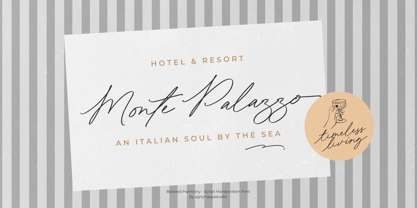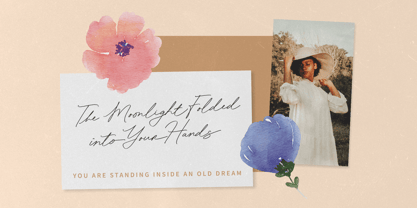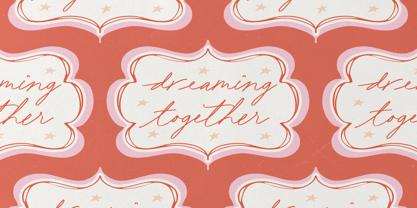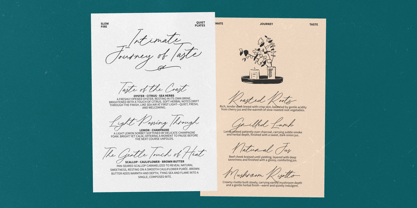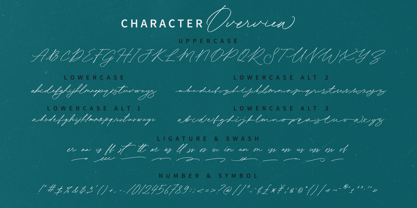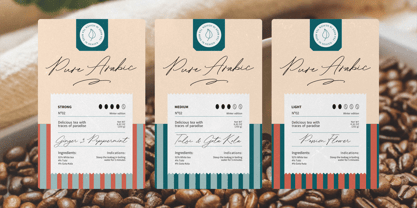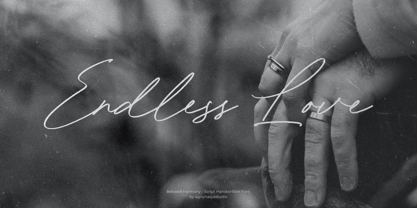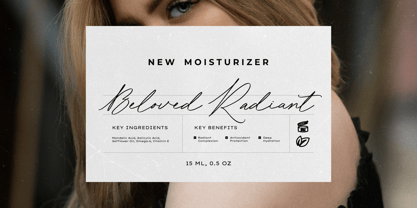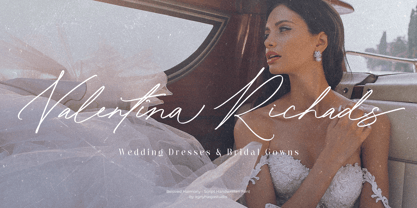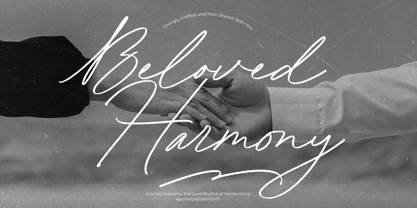
Beloved Harmony
by Agny Hasya Studio
The Beloved Harmony Font Family was designed by Firman Maulana and published by Agny Hasya Studio. Beloved Harmony contains 1 styles. More about this family
Beloved Harmony is an elegant handwritten script font crafted with a natural and romantic flow. Designed to capture the beauty of authentic handwriting, this font brings a sense of warmth, elegance, and sophistication to your design projects. With its smooth strokes, graceful curves, and stylish ligatures, Beloved Harmony creates a luxurious and emotional typographic experience. The flowing letterforms make it perfect for wedding designs, branding, invitations, logos, packaging, and modern lifestyle projects. This script font includes a variety of alternate characters and ligatures that allow you to create beautiful typography with effortless elegance. Beloved Harmony works beautifully for Wedding invitations, Luxury branding, Signature logos, Packaging design, Social media graphics, Restaurant menus, Photography watermarks, Quotes, and lifestyle design Whether you're designing for a romantic wedding brand or an elegant boutique identity, Beloved Harmony delivers timeless handwritten charm. Warm regards, agnyhasyastudio
Designers: Firman Maulana
Foundry: Agny Hasya Studio